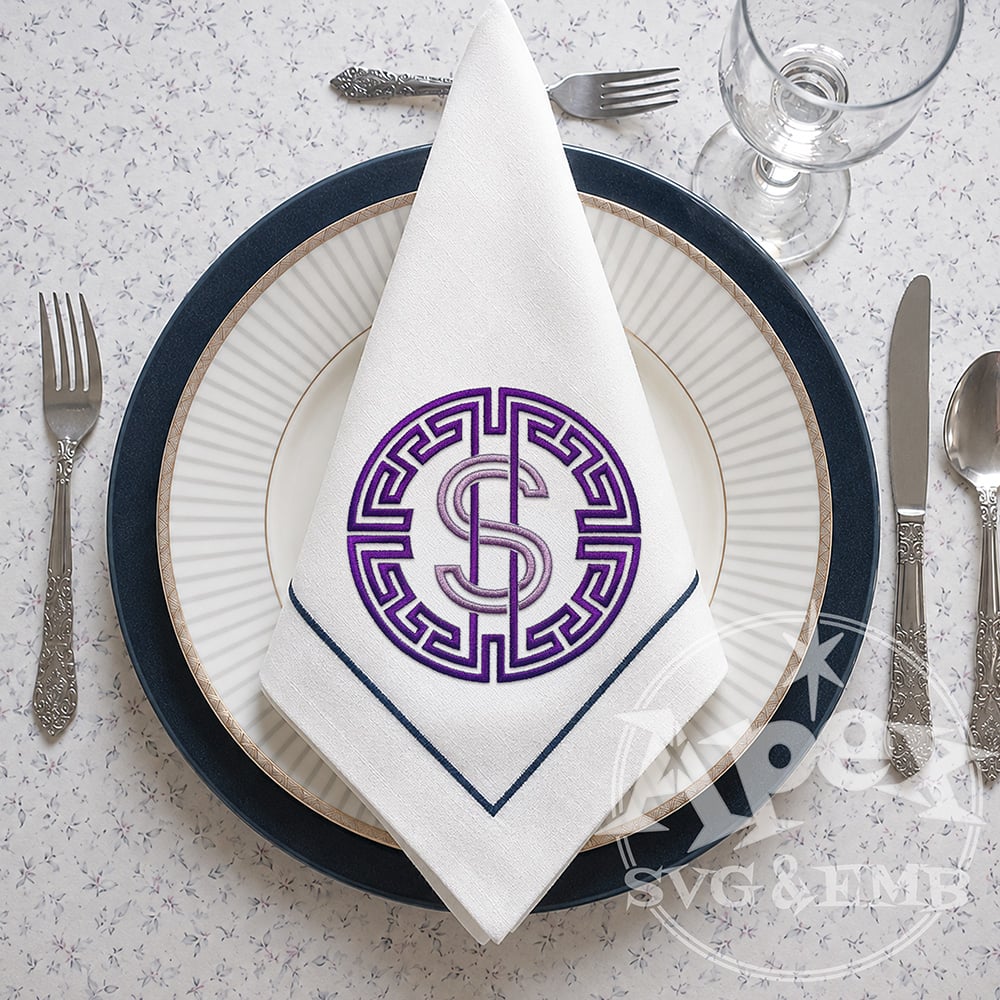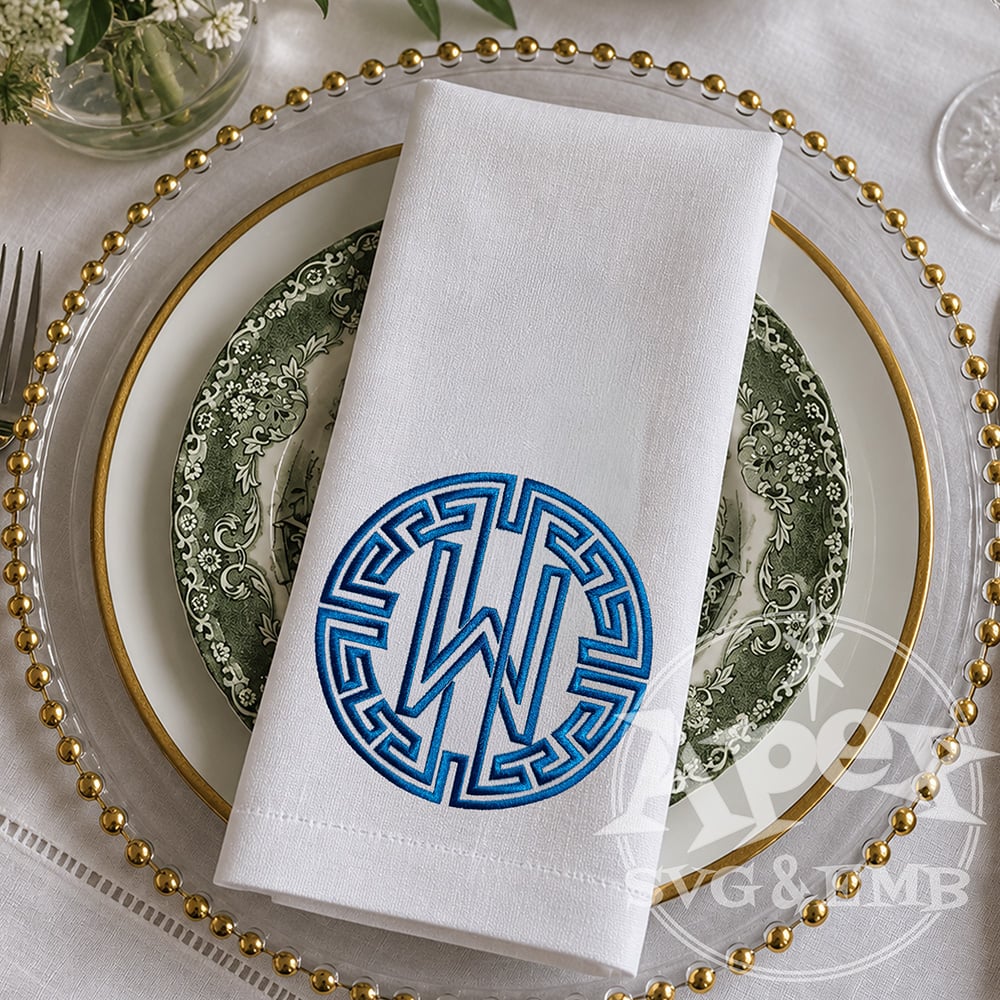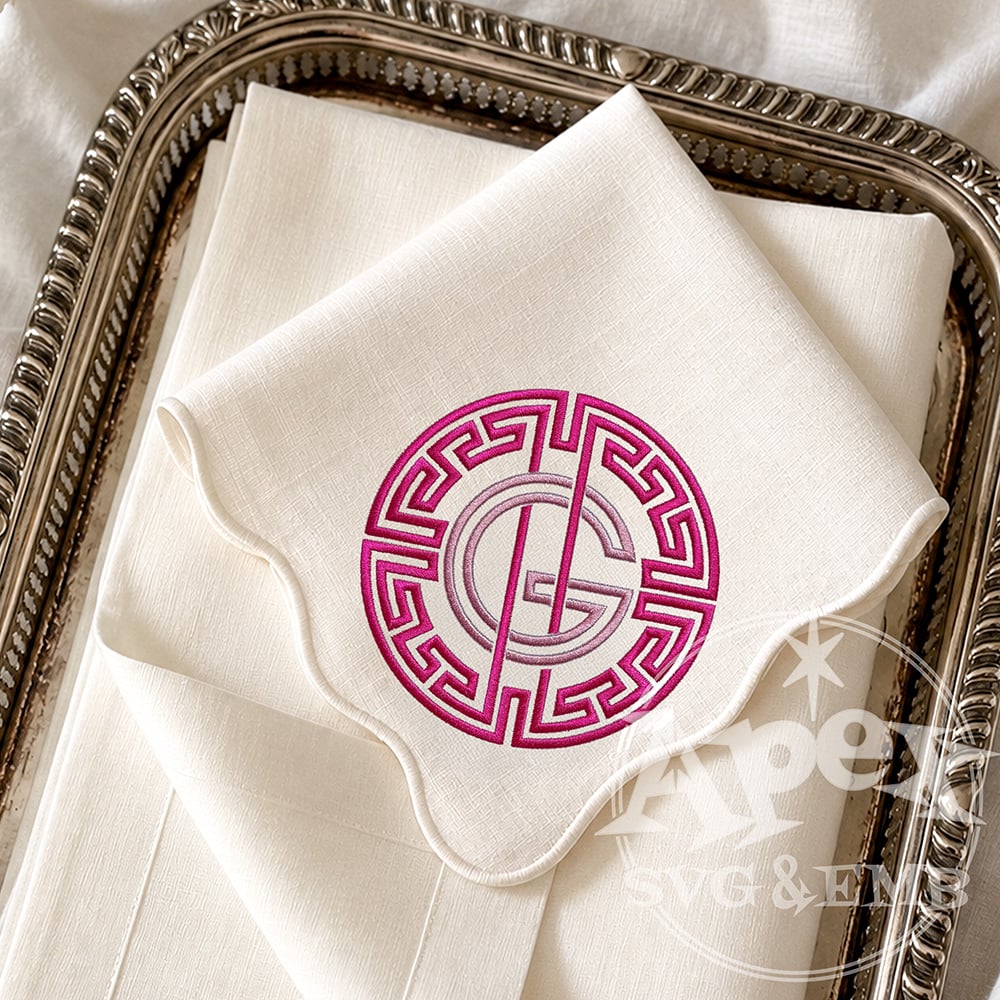
Greek Key Interlocking Medallion Single Monogram Embroidery Font
Create Greek Mediterranean style personalized gifts and home décor with this Single Letter Monogram Embroidery Font. Featuring a classic with Europe Greek Key Interlocking Medallion 2-color embroidery monogram set is perfect for customizing Wedding Gifts hats, linens, towels, baby gifts, tote bags, and more.